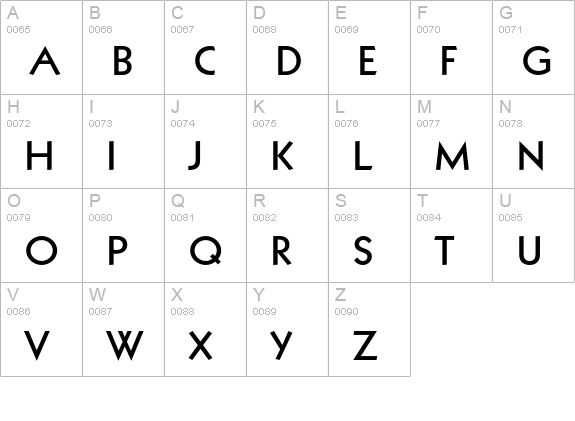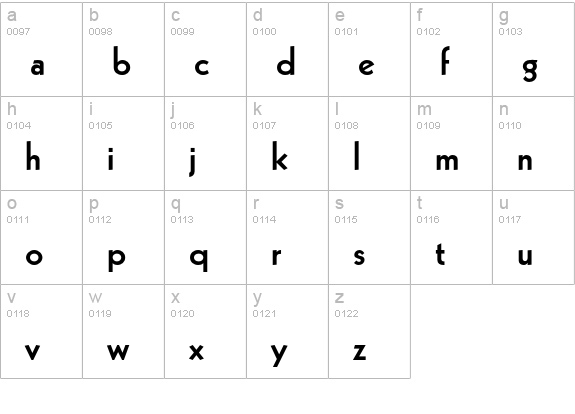
Kabel Heavy Font Details
Kabel Heavy is a heavy, high-impact variant in the Kabel typeface family \xE2\x80\x94 well suited to high-impact headlines, posters, and display advertising.
Kabel Heavy is a bold and powerful font that commands attention with its strong presence and sturdy letterforms. With its thick and robust strokes, this font exudes confidence and strength, making it perfect for creating impactful headlines, logos, and branding materials. The Kabel Heavy font strikes the perfect balance between elegance and edginess, making it versatile and suitable for a wide range of design projects. Whether you're designing a poster, packaging, or a website, this font will add a touch of sophistication and professionalism to your creations. One of the best features of Kabel Heavy is that it is freely available to download at FontsMarket.com. This means that you can easily access and use this font in your design projects without any cost. This makes it an ideal choice for designers on a budget or anyone looking for a high-quality font without breaking the bank. The clean and precise lines of Kabel Heavy ensure excellent legibility, even at smaller sizes, making it a practical choice for body text as well. It offers a unique and modern twist on a classic font style, making it a standout choice that will catch the eye and make a lasting impression. With its bold weight and distinctive character, Kabel Heavy is a font that demands attention and leaves a lasting impact. Whether you're designing for print or digital media, this font will elevate your designs and add a touch of professionalism. Download Kabel Heavy for free at FontsMarket.com and unlock the limitless possibilities it offers for your design projects.